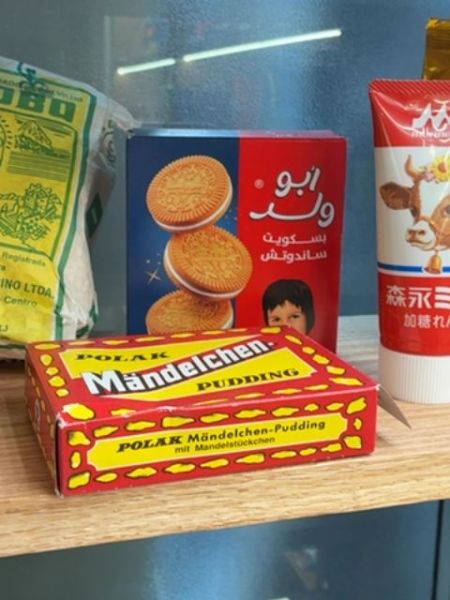
POLAR Mändelchen Pudding
A pudding mix with almond pieces, providing a flavored dessert option.
Germany
The word 'POLAR' is in a bold, sans-serif typeface, which conveys strength and simplicity. 'Mändelchen' is styled in a playful serif font with a slight italic slant, adding dynamism. This mix of serif and sans-serif types creates a balanced yet lively visual appeal.
The packaging is a vibrant red box with yellow highlights, featuring playful cloud-like patterns. The box prominently displays the product name in bold, black lettering against a bright yellow background, drawing attention.
- Contains almond pieces
- Instant pudding mix
- Bright, eye-catching design